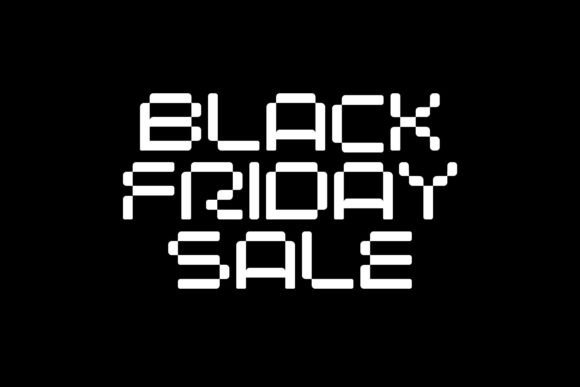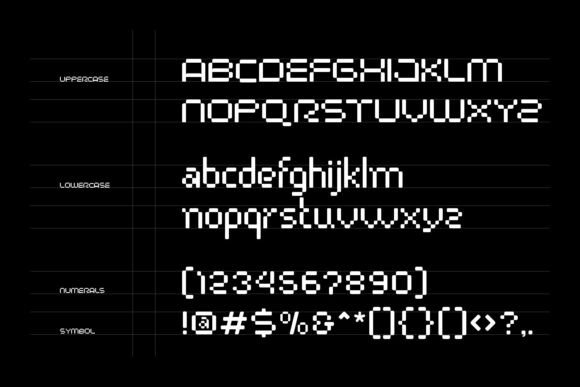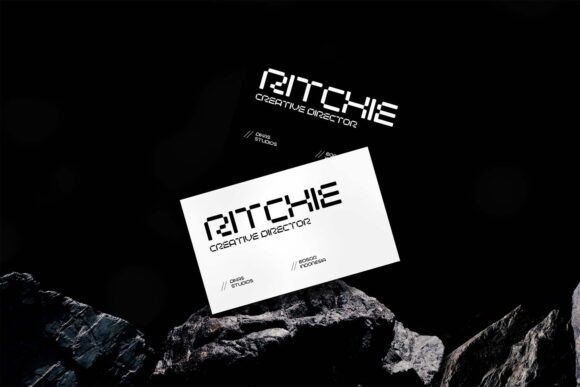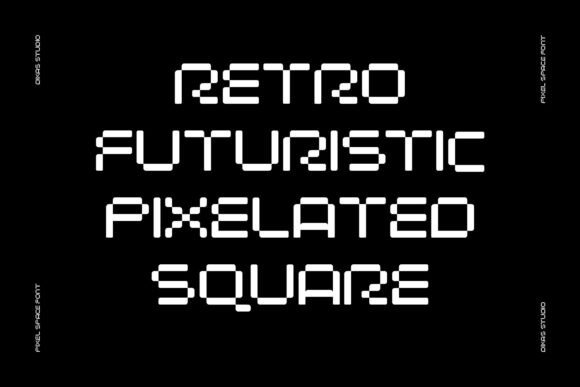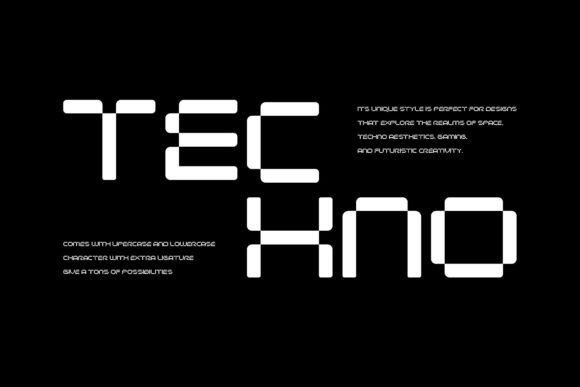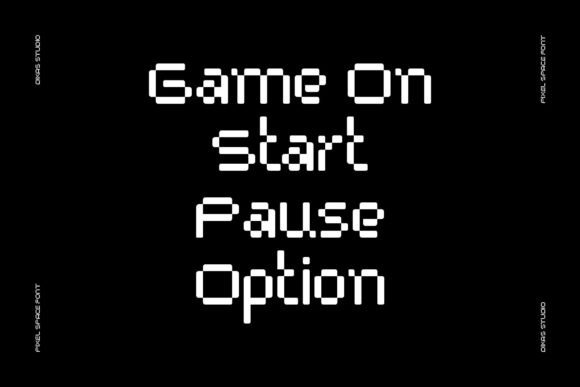
Introduction to Pixel Space Font
Pixel Space is a sans-serif font that fuses the futuristic with the charm of pixel art.
Its unique style is perfect for designs that explore the realms of space, techno aesthetics, gaming, and futuristic creativity Whether youโre working on a sci-fi poster, a game interface, or pixel-inspired art, Pixel Space brings a bold, modern edge to your projects.
Key Features of Pixel Space Font